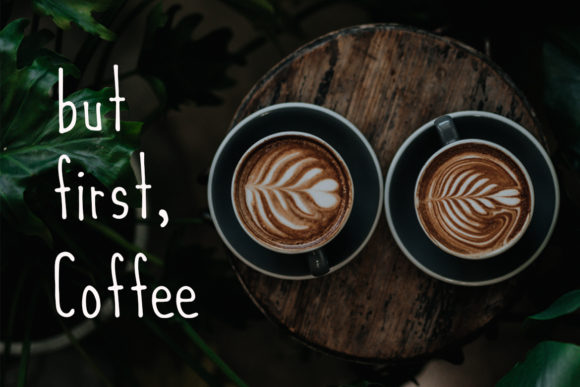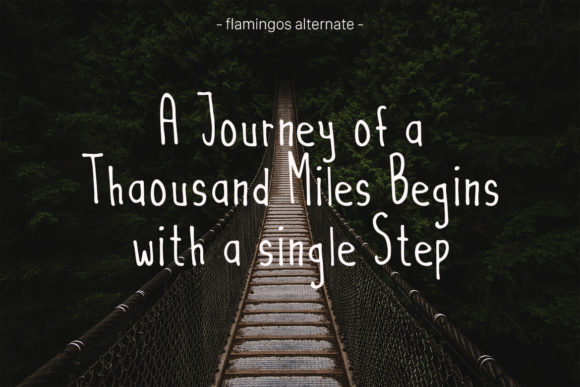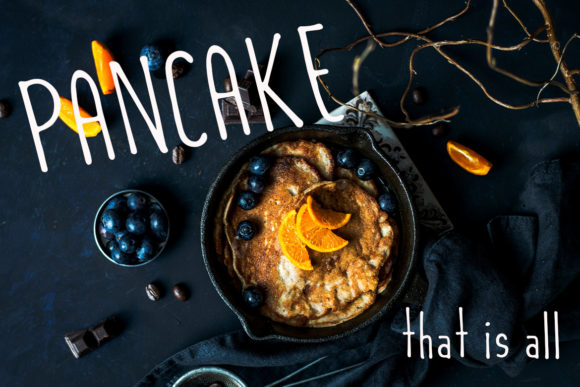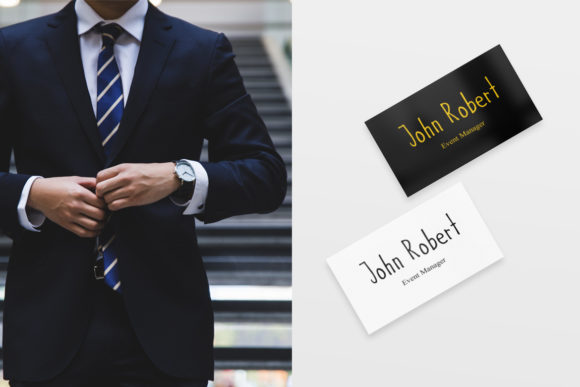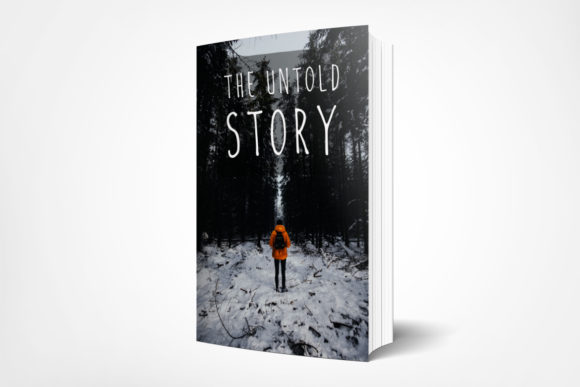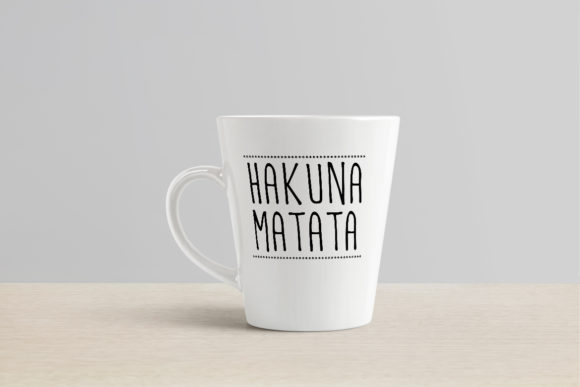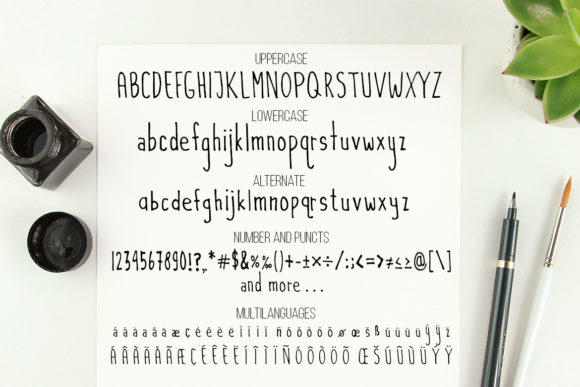
Flamingos Font
Flamingos is a skinny and cute script font that’s great for a big variety of design ideas. Get inspired by its unique charm, and turn any design idea into a true standout!